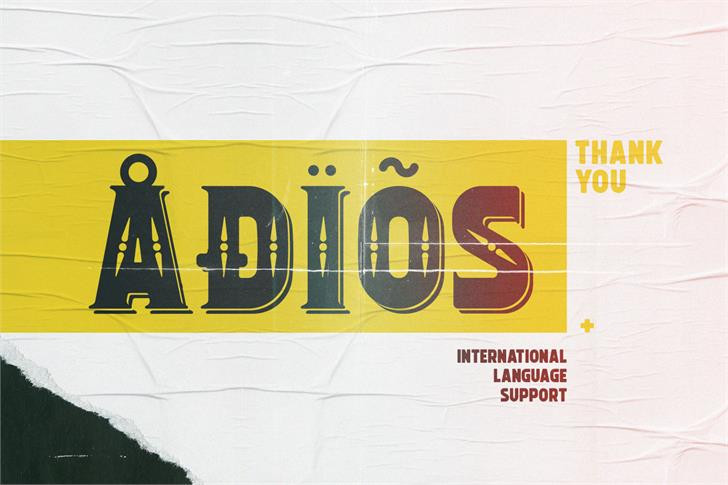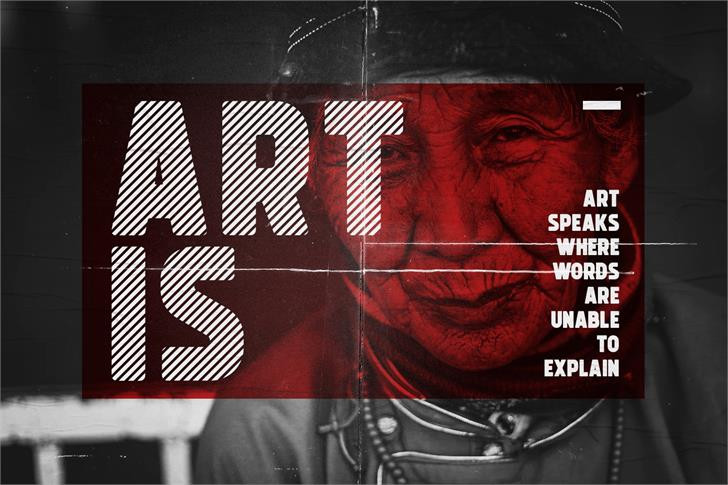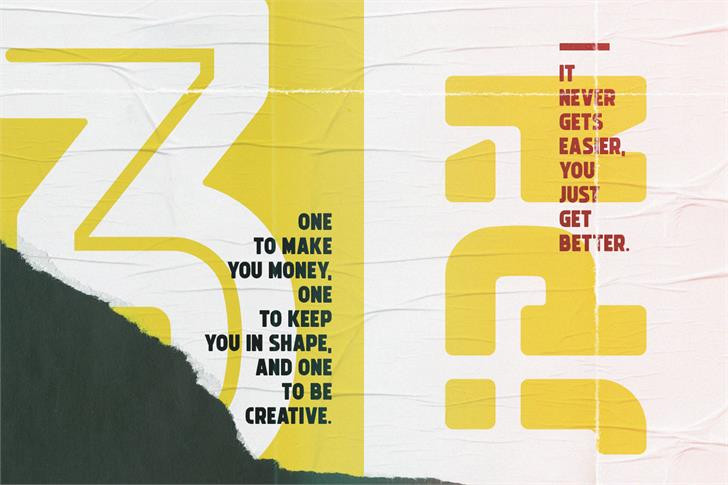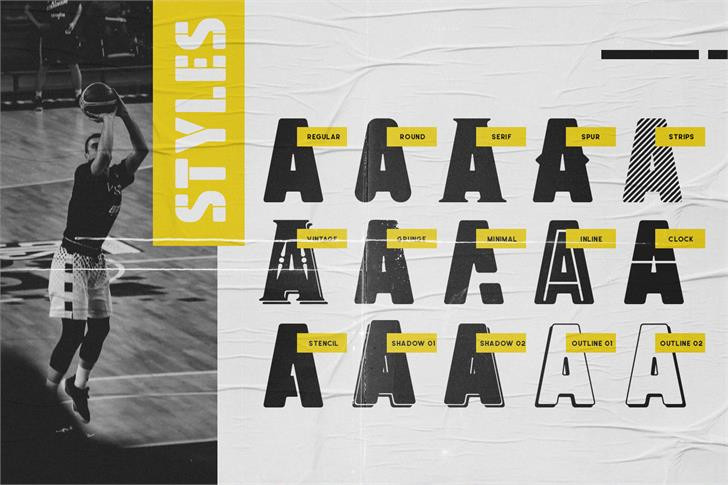
Michelangelo Font Demo
Thank you for looking Michelangelo Typeface Family. Get creative and establish a unique sense of style in your t-shirt designs with these strong and totally unique display fonts. It’s a very versatile font that works great in large and small sizes! Michelangelo Sans design and shared by OneDollarFont. Michelangelo is a bold font with both of modern and vintage touch. It comes in 15 styles, attractive and bold glyphs, thereby creating more variability. Designed with powerful opentype features in mind. Each styles includes extended language support, currency, and more. Perfectly suited for graphic design and any display use. It could easily work for web, signage, corporate as well as for editorial design.